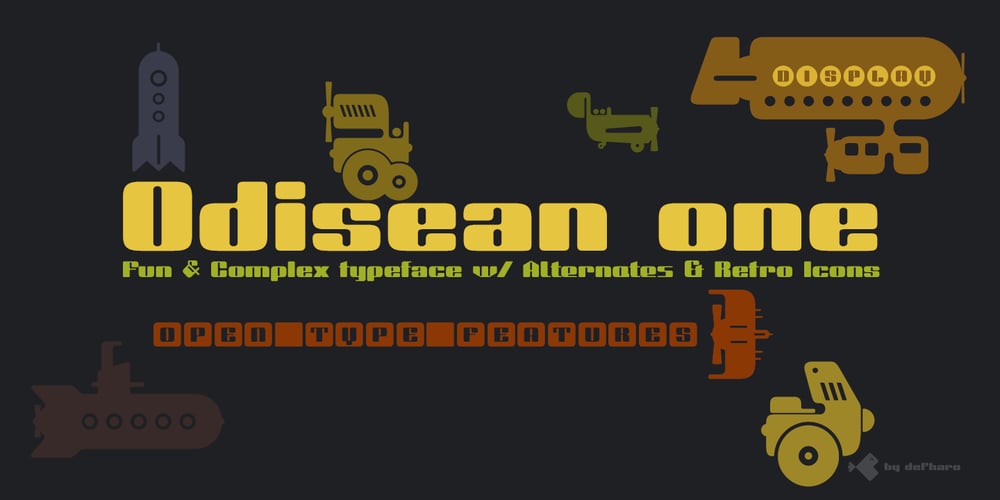
Odisean Font Family was designed by Fernando Haro and published by deFharo. Odisean contains 3 styles and family package options. Odisean Fonts and its 3 styles (One, Tech & Small Caps) are ideal for graphic design, editorial, logos and posters. Its rounded finish and marked contrast between antlers evoke the charm of bygone eras. In addition, it has a collection of retro icons accessible through OpenType: Small Caps.Letter proportions are multiples of 8, ensuring exceptional visual harmony, while metrics and kerning use values multiples of 8 for impeccable legibility and aesthetics. Discover Odisean and revive retro nostalgia in your designs.Each Odisean variant comes loaded with a set of alternative letters that allow you to customize and adapt each project to your liking. In addition, you will be able to access an exclusive collection of retro icons through the OpenType feature: Small Caps, adding even more versatility and charm to your creations. – Odisean One will transport you to a bygone era with its retro charm, offering you alternative lyrics that evoke the aesthetic of the golden and happy years.- Odisean Tech for those who love technology and innovation, the font is full of graphic elements and retro transportation icons, which will immerse you in a futuristic world of the past.- Odisean Small Caps bring elegance and versatility to your designs with their small capital letters.